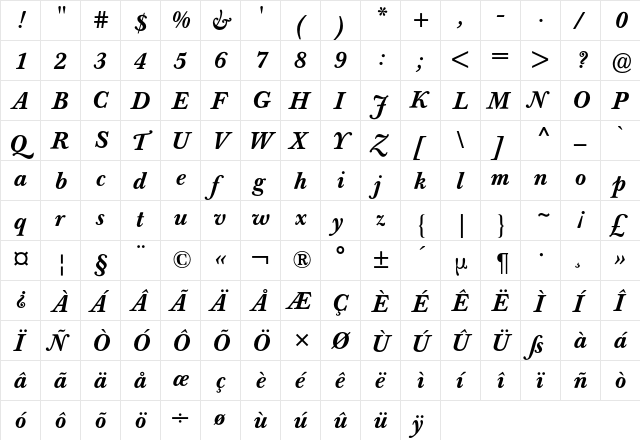
Baskerville Book BQ Regular
Design Context for Baskerville Book BQ Typeface
Baskerville Book BQ offers clean, dependable letterforms without strong stylistic allegiance, making it a practical choice for designers who need flexibility.